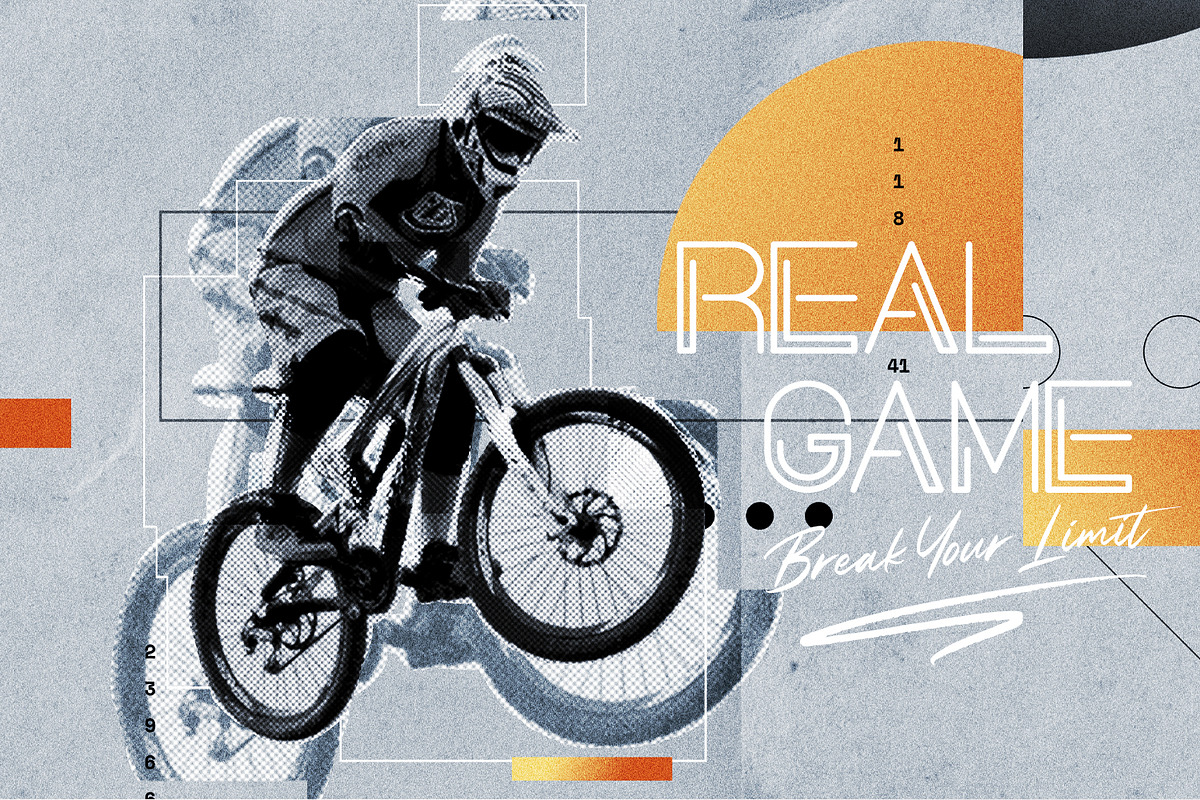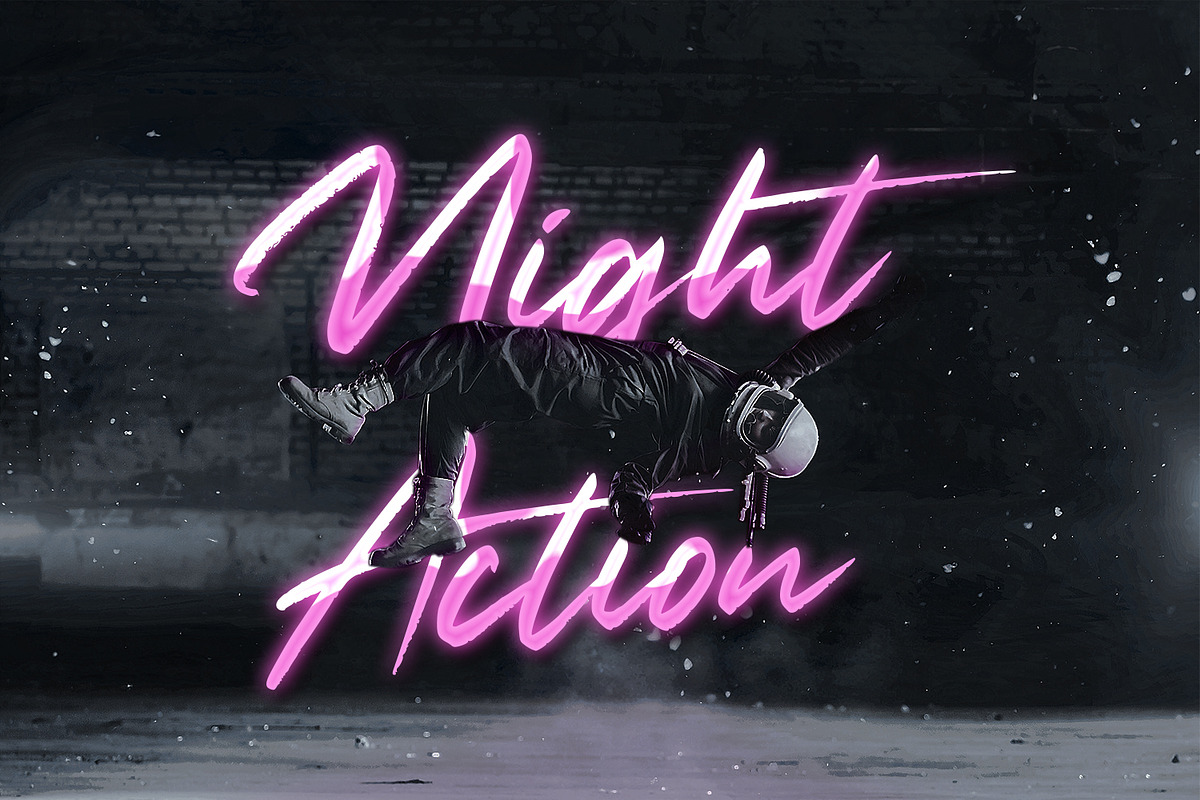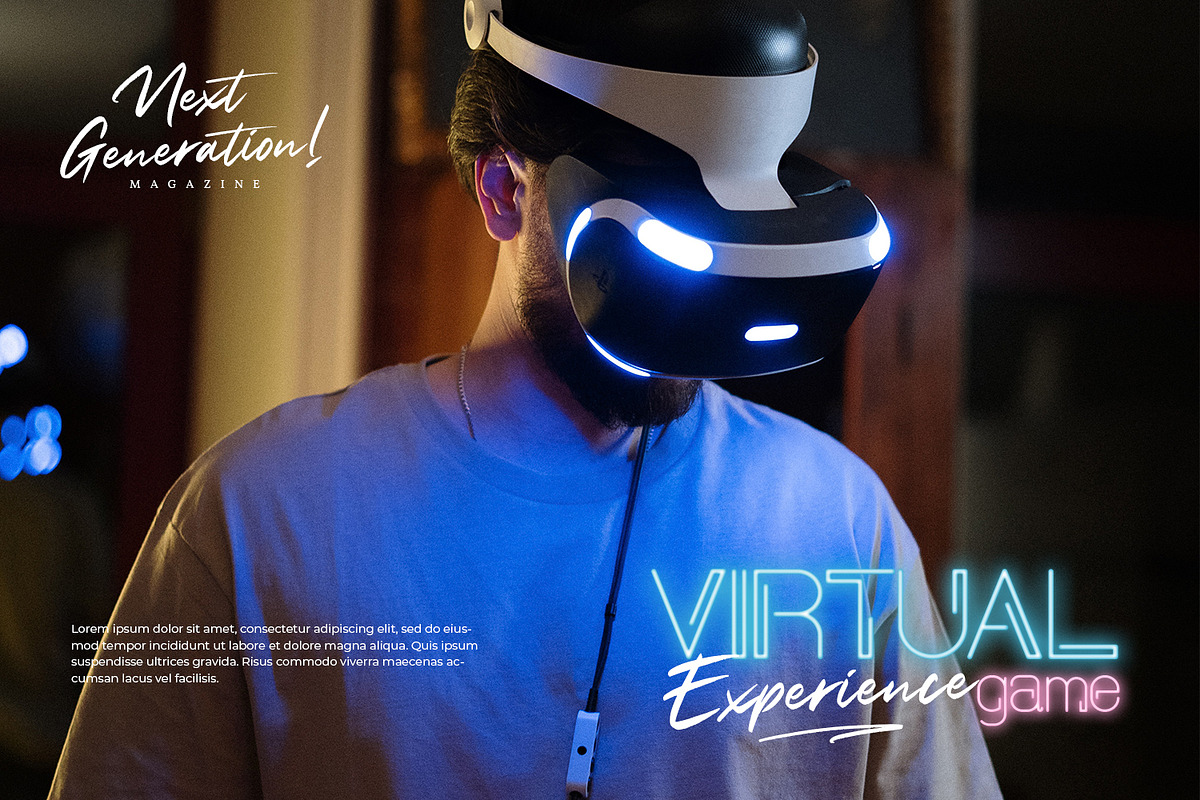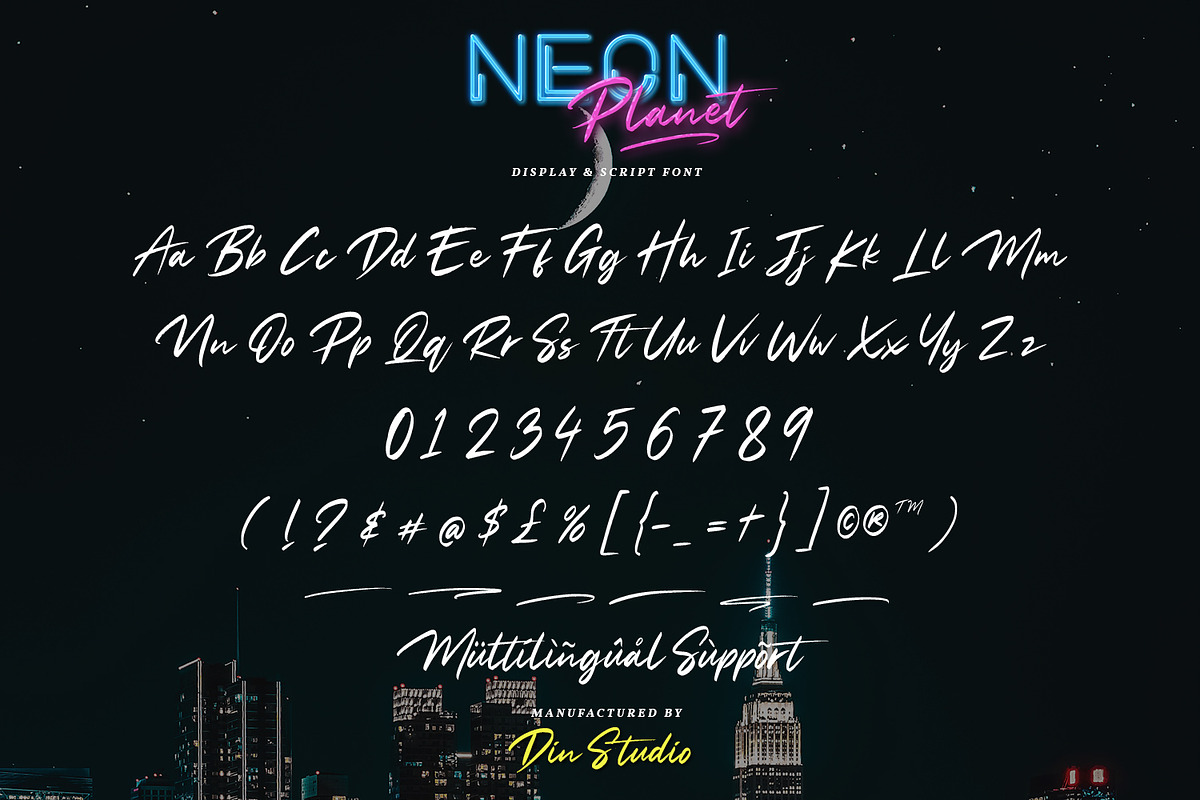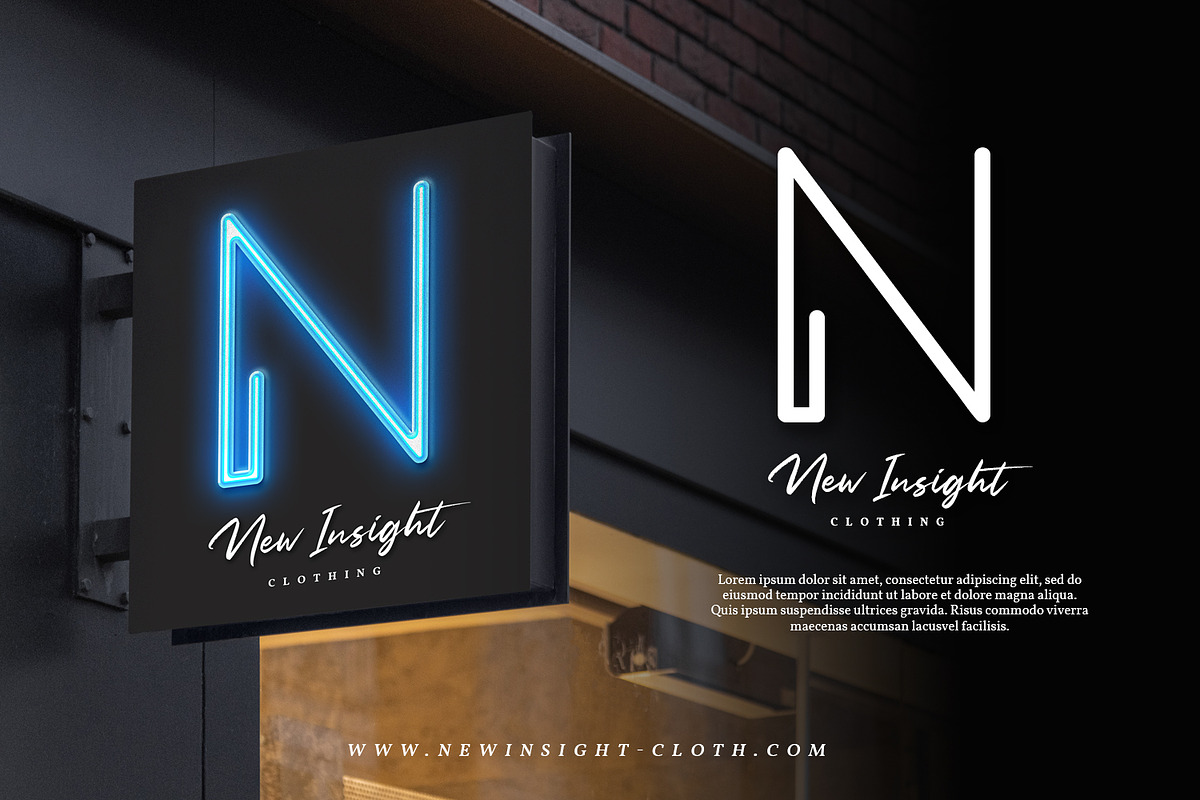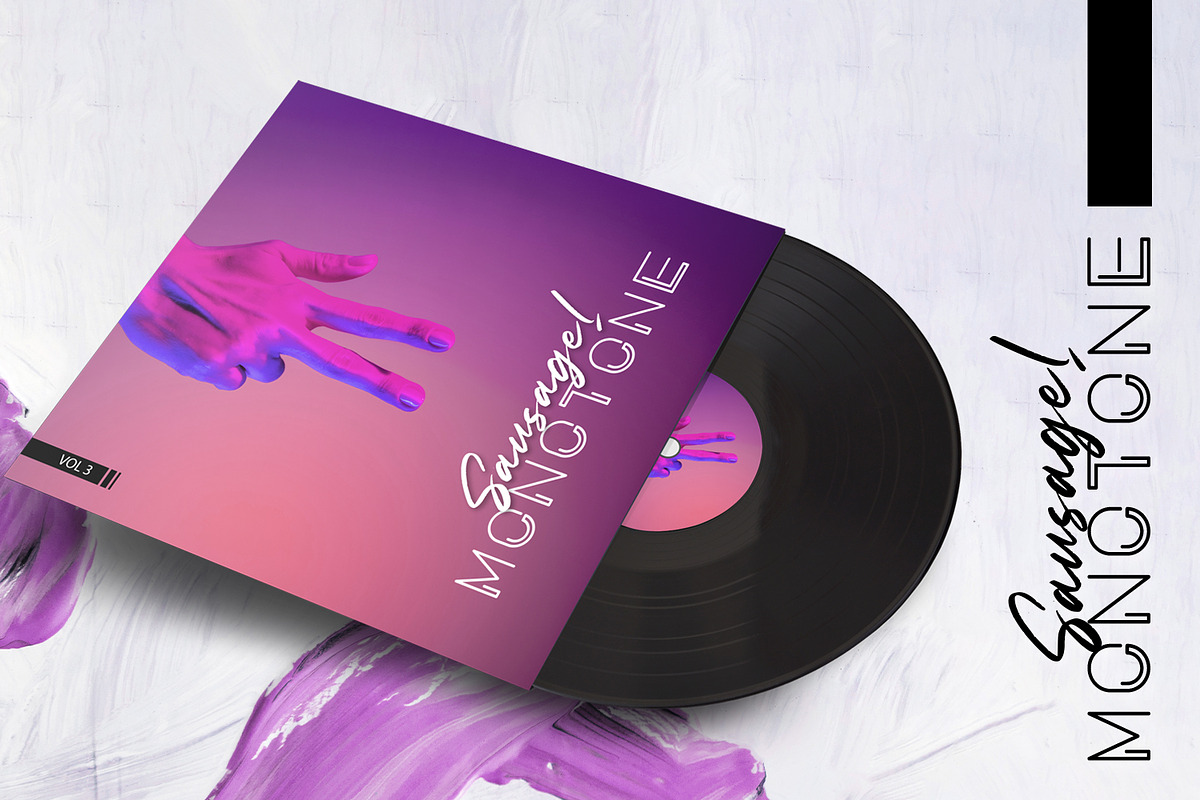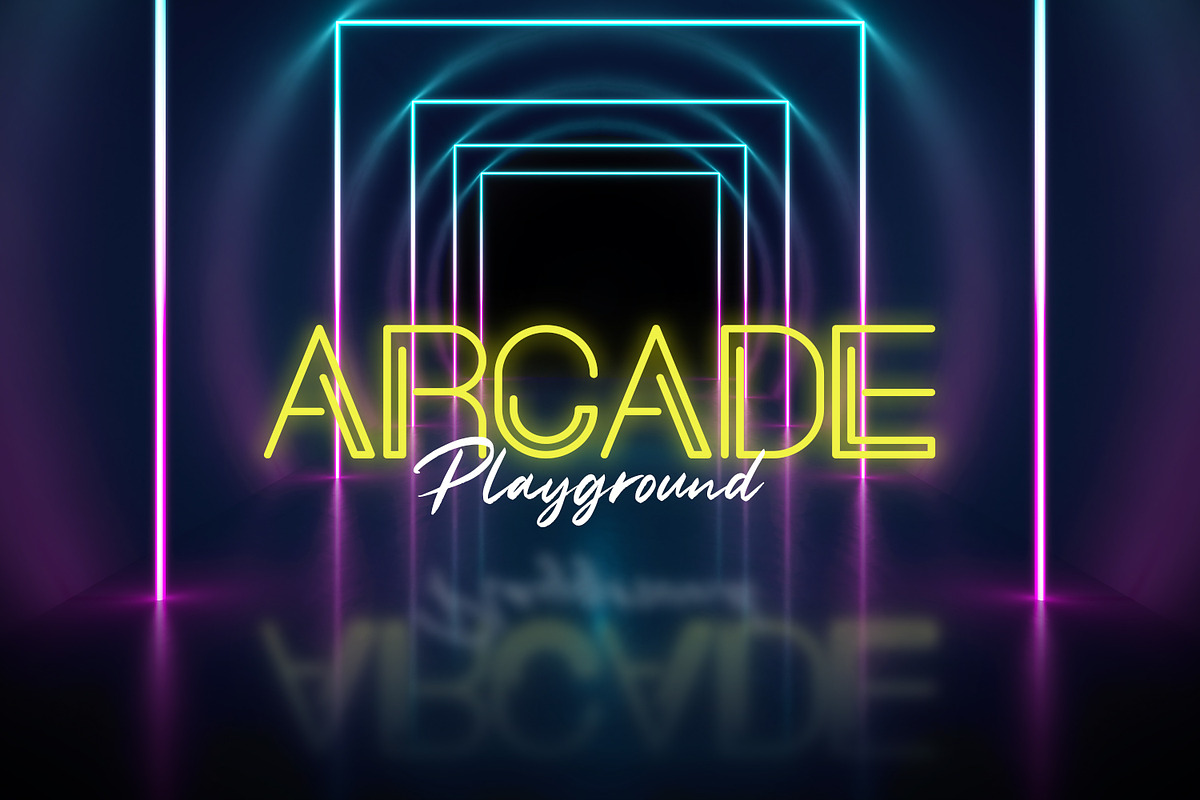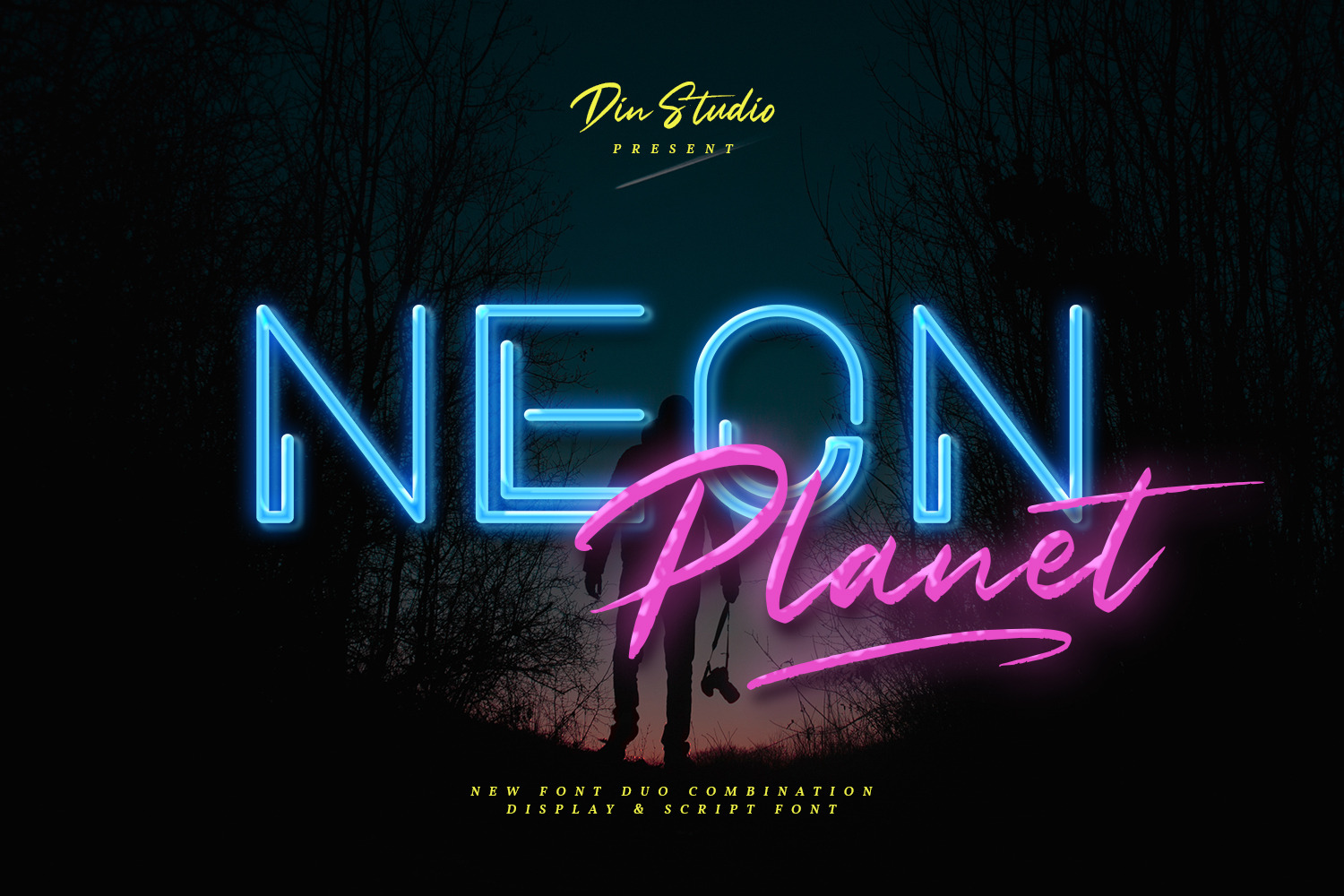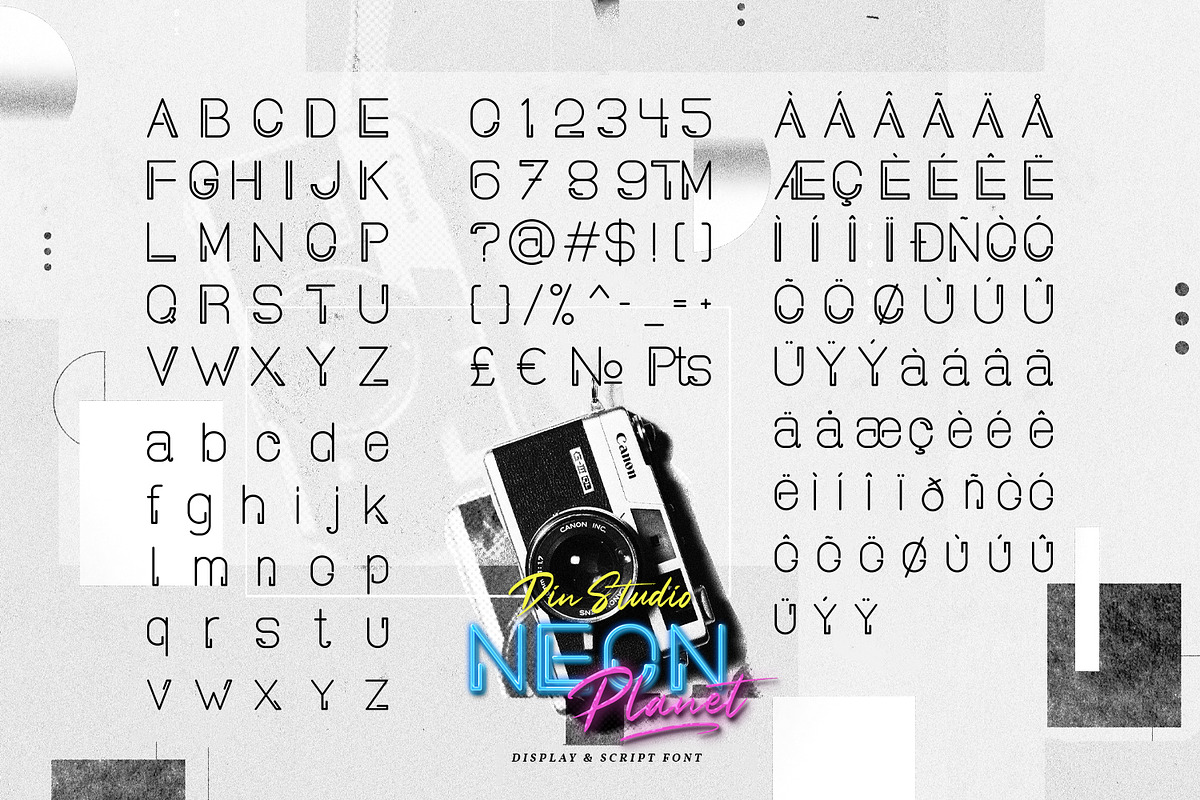
Neon Planet - Font Duo
The Neon Planet is a Modern and futuristic font duo. Combined with neon shape design and brush textured handwritten will make your design project more powerful. the font is suitable for any project that needs Retro, Modern, and Casual Vibes.
Use Neon Planet for various designs, such as posters, banners, logos, book covers, headings, printed products, merchandise, social media, and more. Find out more ways to use this font by taking a look at the font preview. Enjoy your experience with this font and feel free to contact us for further product information or trouble complaints. Thank you and wish you good luck with your designs.